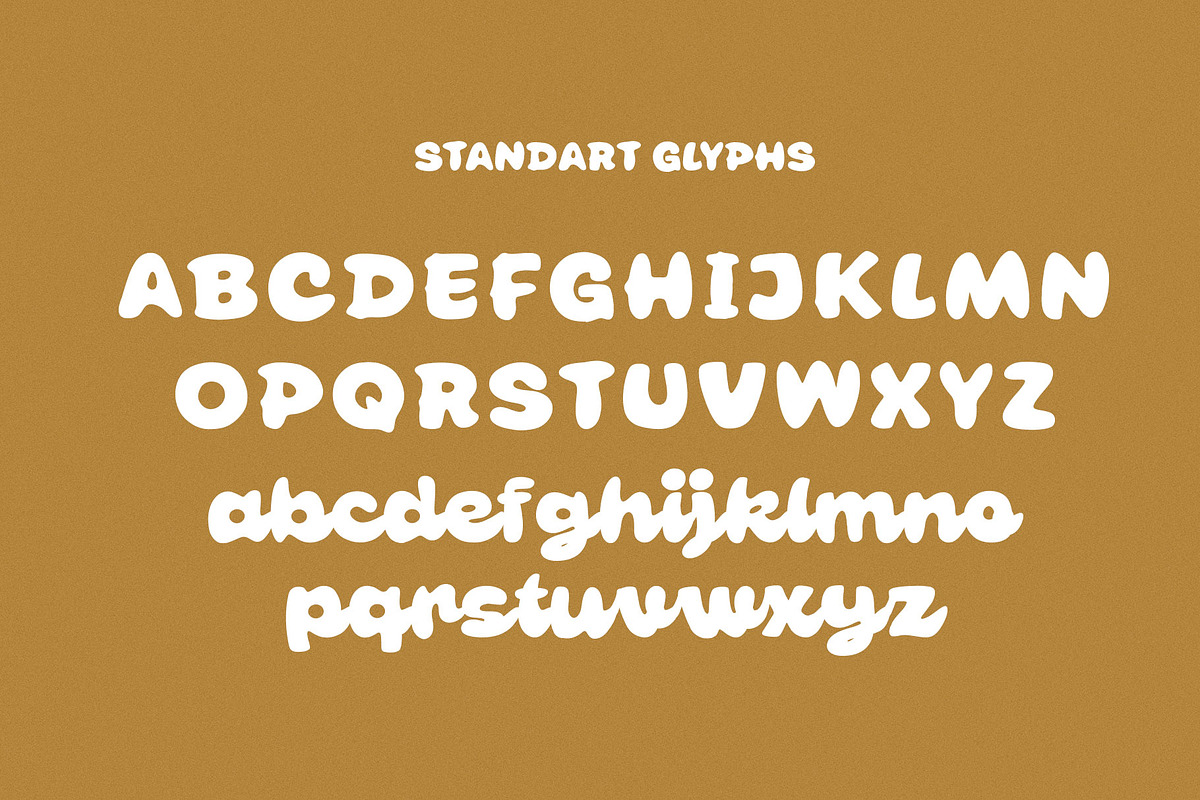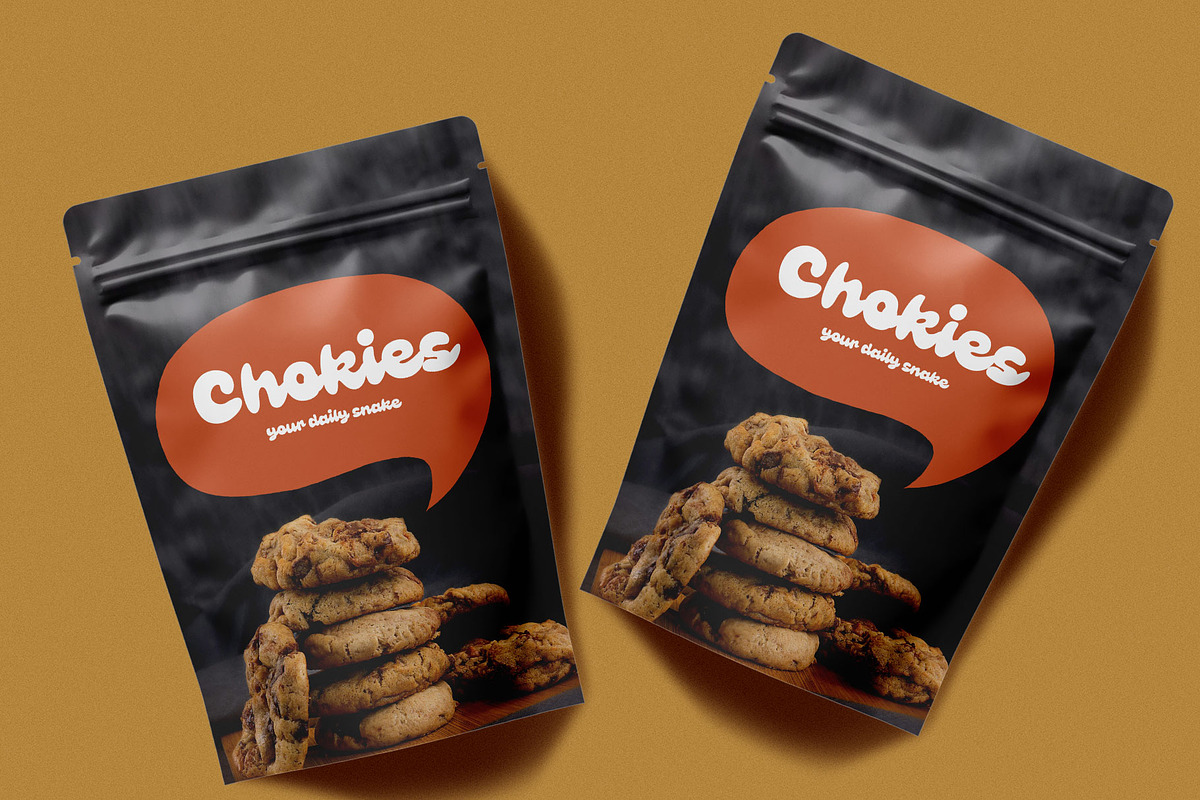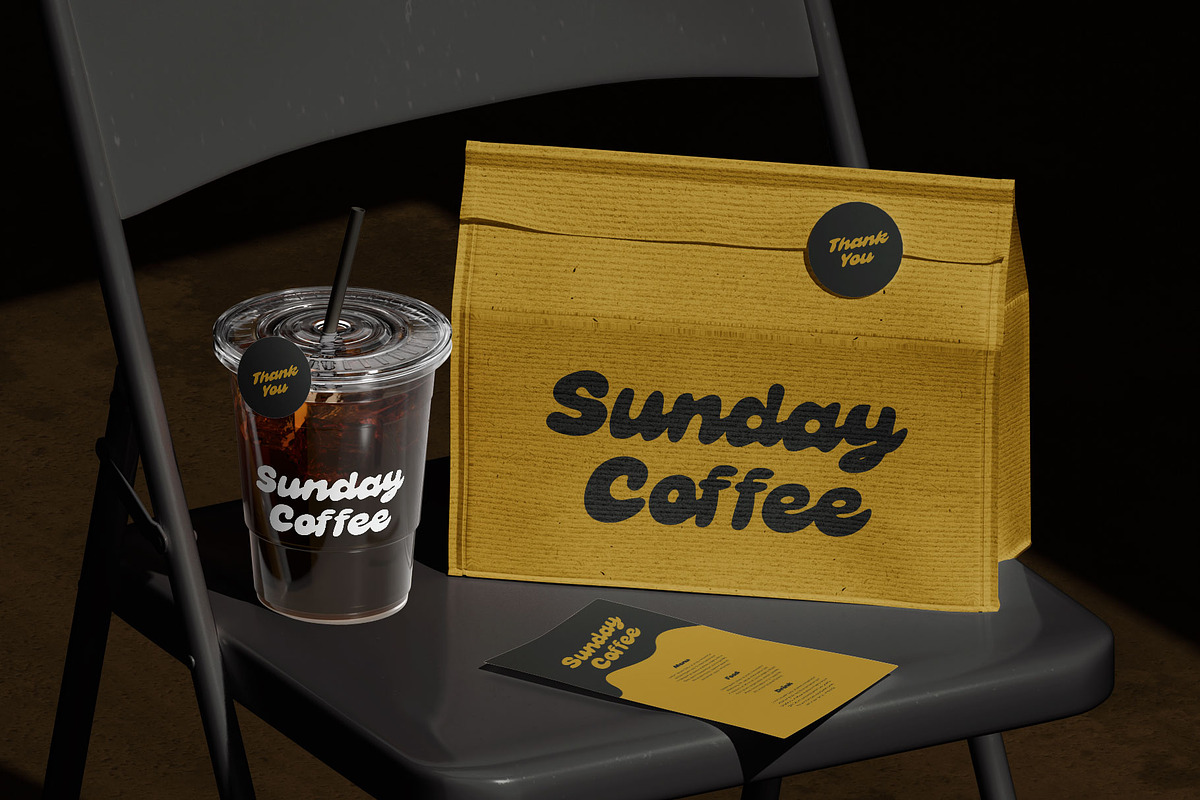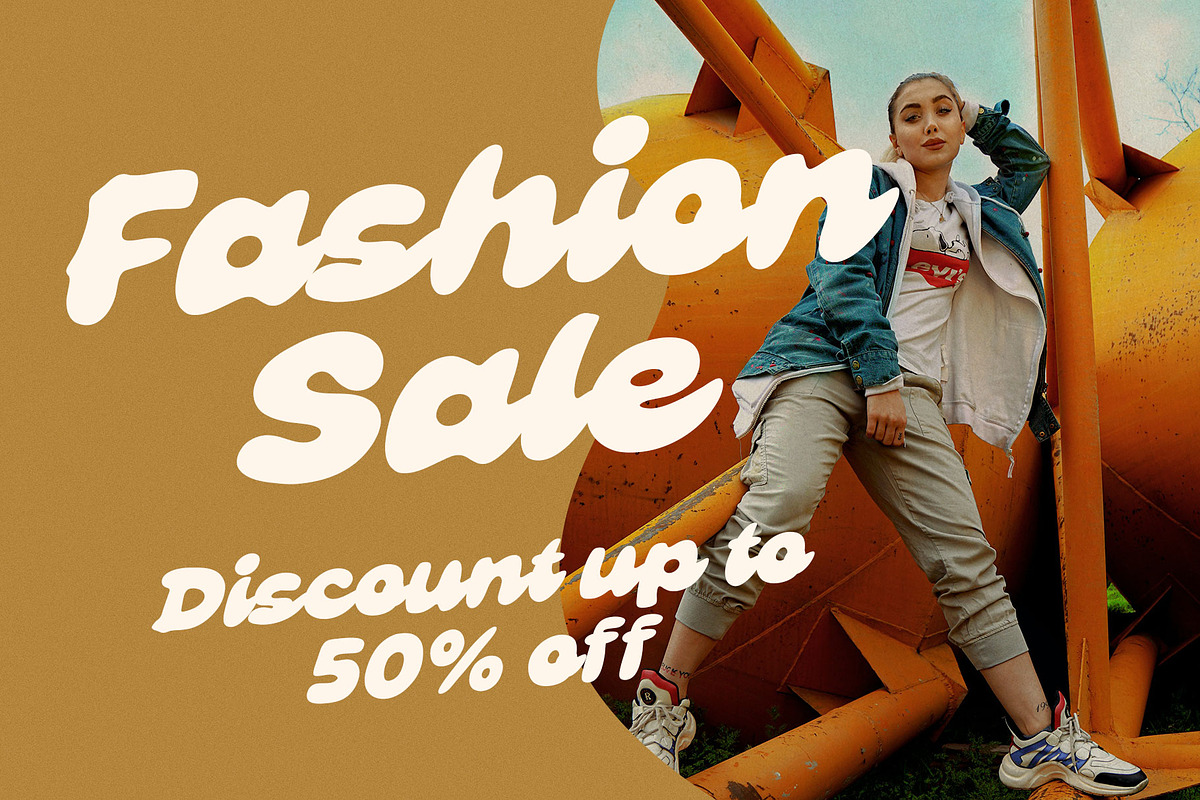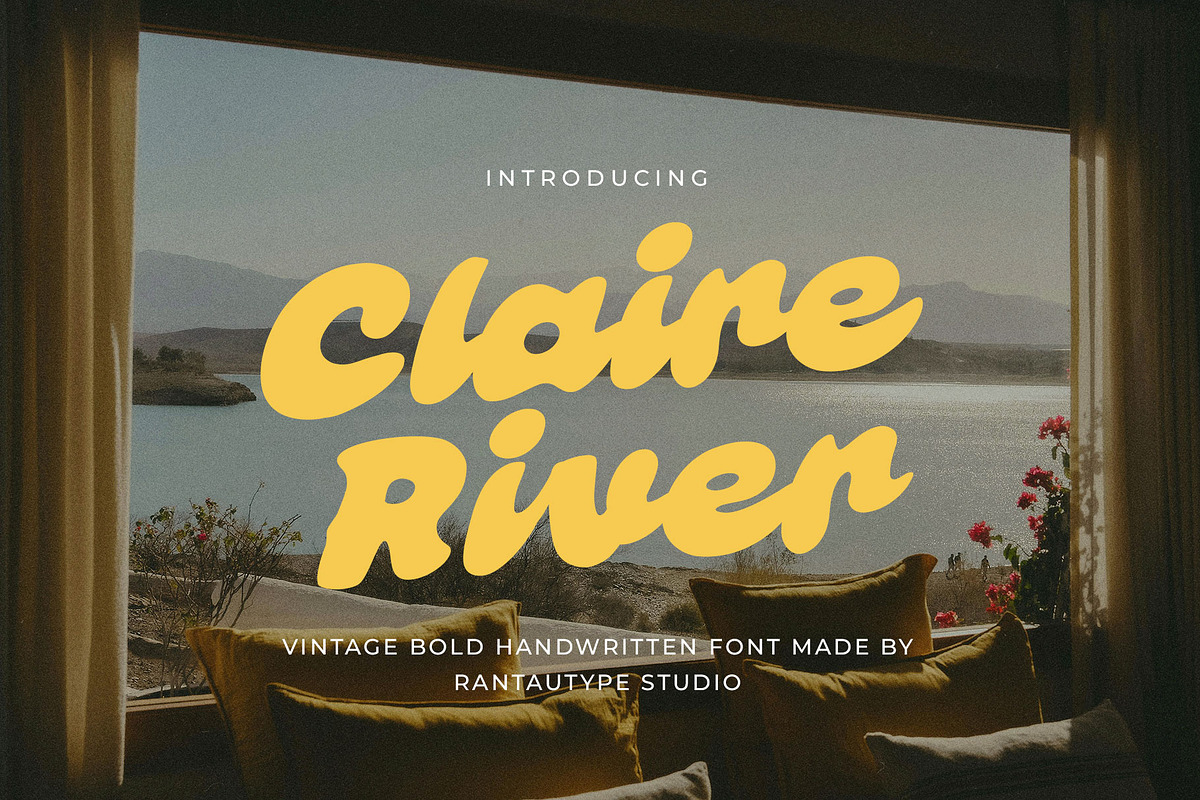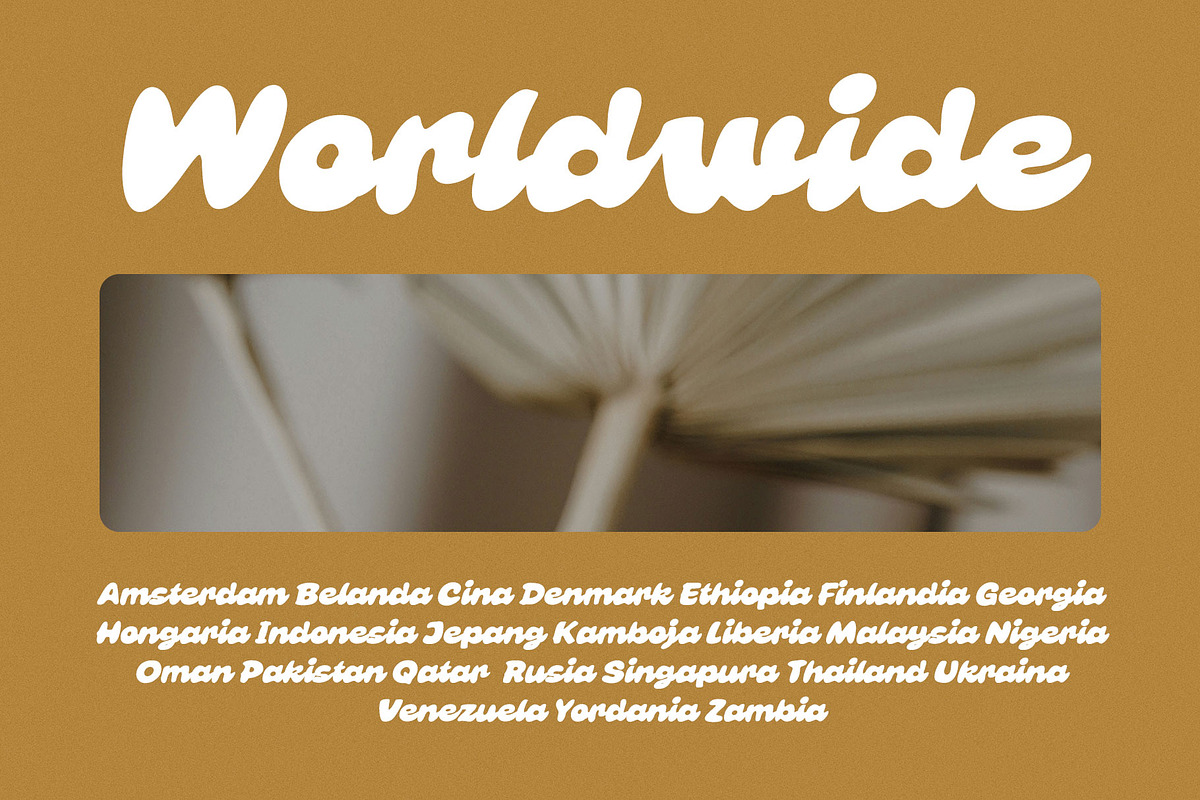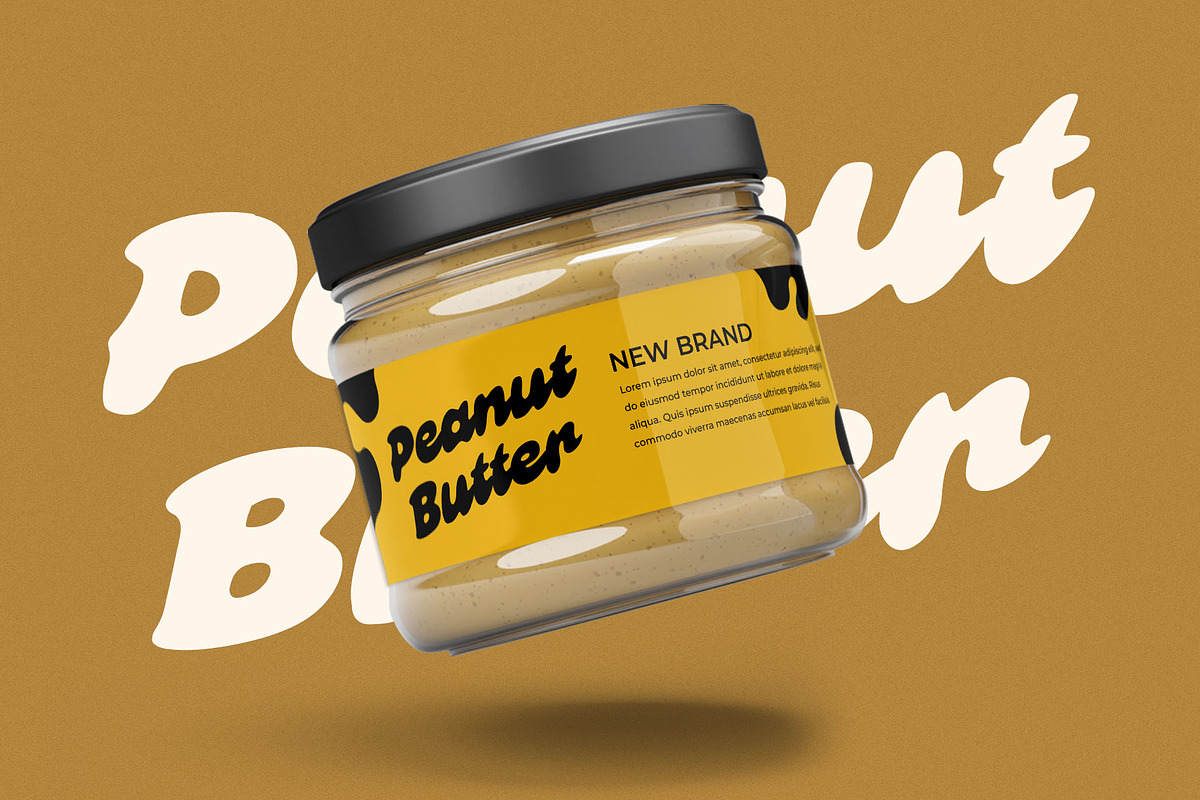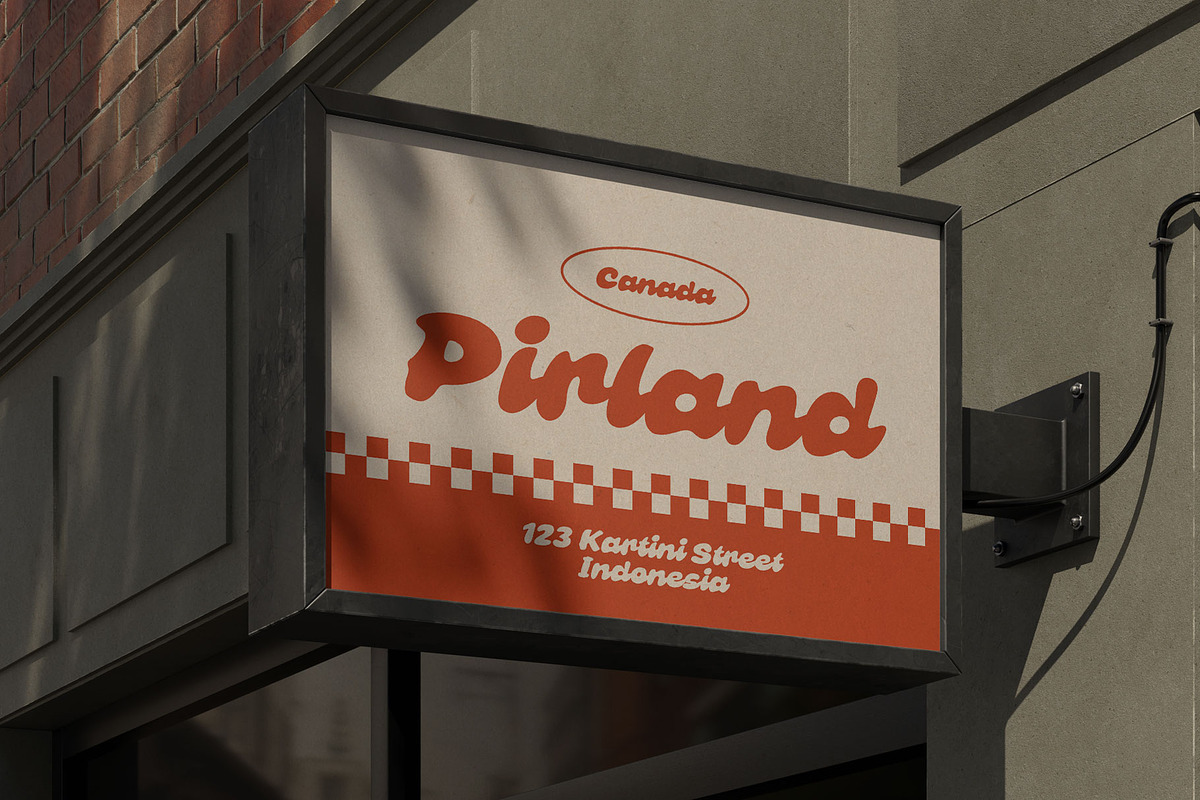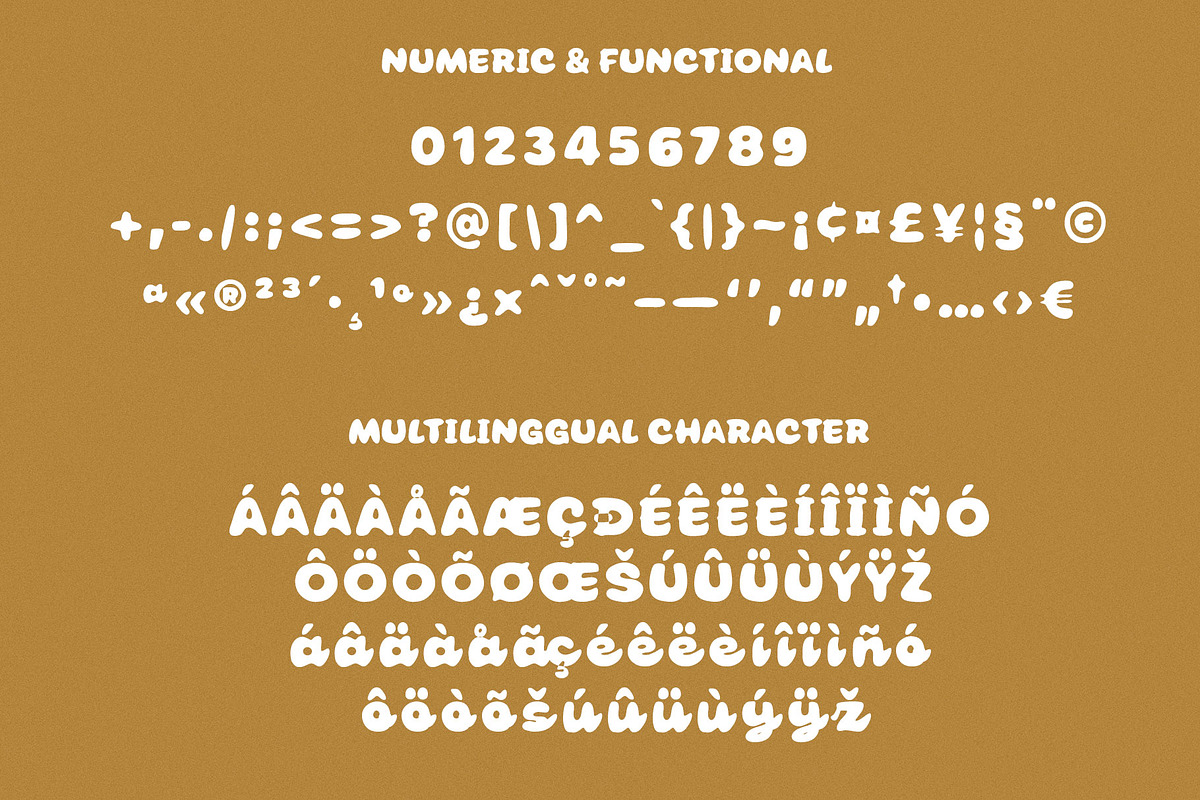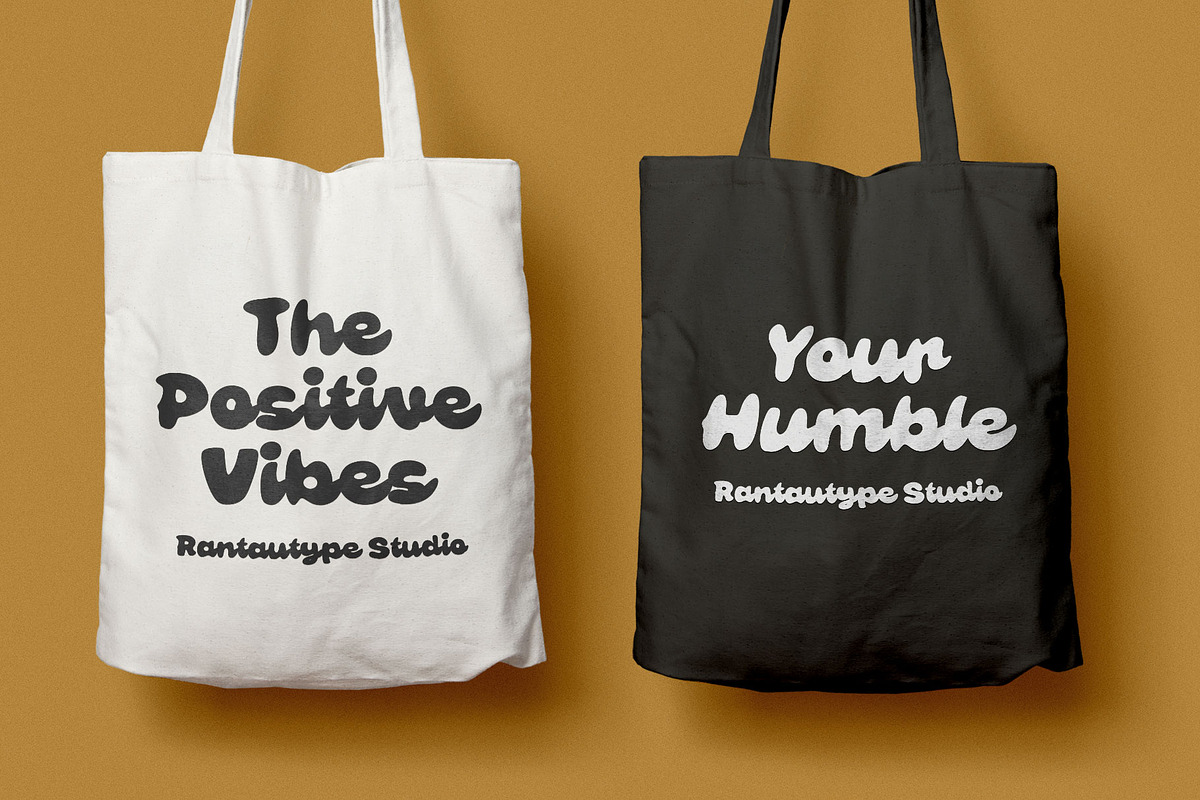
Claire River Vintage Bold Handwritte
Claire River is vintage handwritten font captures the spirit of timeless craftsmanship with a confident, expressive touch. Inspired by classic signage, retro packaging, and old-school lettering, this style blends nostalgic charm with powerful personality.
Claire River is a perfectly choice for any creative endeavor, creating, modern, lifestyle design such as logotype, title, cover, branding, invitations, wedding designs, display and magazine, social media posts, advertisements, printed quotes, product packaging, corporate brand, product designs, labels, photography, watermarks, special events and any other project with vintage touch.
- Standart Glyphs
- Alternate and ligature
Fonts include Multilingual Character for: Afrikaans, Albanian, Asu, Basque, Bemba, Bena, Breton, Chiga, Cornish, Dutch, English, Estonian, Filipino, Finnish, Friulian, Galician, Gusii, Indonesian, Irish, Italian, Kabuverdianu, Kalenjin, Kinyarwanda, Luo, Luxembourgish, Luyia, Machame, North, Oromo, Portuguese, Quechua, Romansh, Rombo, Rundi, Rwa, Samburu, Sango, Sangu, Scottish, Gaelic, Sena, Shambala, Shona, Soga, Somali, Spanish, Swahili, Swedish, Swiss, German.